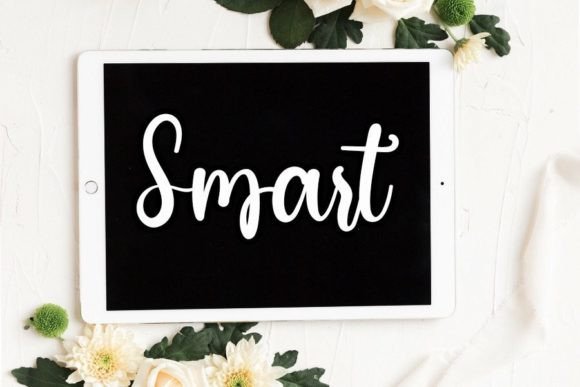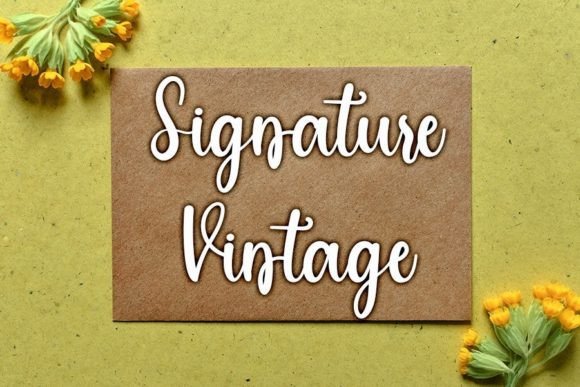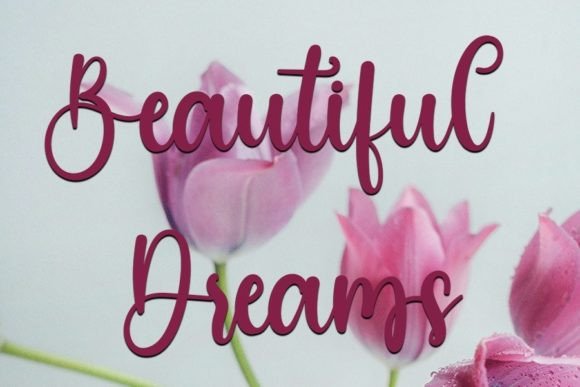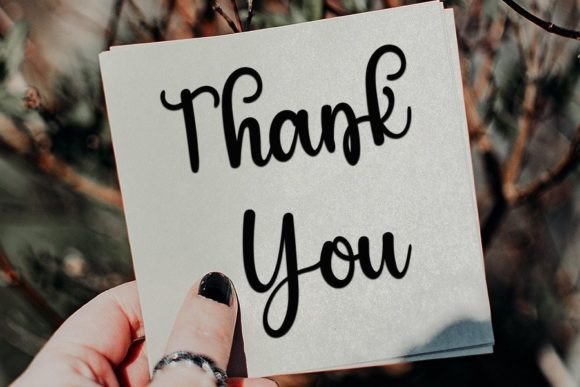
About Welly Font
**”Welly”** is more than just a font; it’s a testament to elegance and refinement, meticulously designed to add a touch of sophistication to your favorite projects. Its neat and beautiful handwritten style is characterized by an elegant touch, making it an ideal choice for a wide range of creative endeavors. Whether you’re crafting invitations, posters, logos, or any other project, “Welly” effortlessly elevates your designs, transforming them into visually stunning masterpieces.
Envision your invitations adorned with the neat and beautiful characters of “Welly,” each letter exuding a sense of precision and grace. Picture your posters, each word thoughtfully crafted in this font, capturing attention with its distinct and elegant charm. Logos gain a unique identity when designed with “Welly,” leaving a lasting impression on your audience.
“Welly” isn’t just a font; it’s a design essential that adds a touch of timeless elegance to your projects. Its clean and beautiful handwriting creates an allure, drawing admiration wherever it’s used. The font’s distinct and timeless style becomes a signature element, reflecting your dedication to quality and creativity.
In a world where aesthetics are paramount, “Welly” stands out as a symbol of sophistication and style. Its elegant touch adds a layer of refinement to your designs, making them memorable and impactful. When you choose “Welly” for your projects, you’re not just selecting a font; you’re making a statement—a statement of elegance, creativity, and attention to detail.
So, whether you’re a professional designer striving for perfection or an individual with a passion for creative expression, “Welly” is your trusted companion. It’s more than just a font; it’s an opportunity to infuse your designs with the elegance of handwritten beauty. Let “Welly” be the brush that paints your imagination and the handwritten touch that transforms your designs into works of art. With “Welly,” your projects are bound to shine with sophistication and timeless charm, leaving a lasting impression on anyone who experiences their beauty.